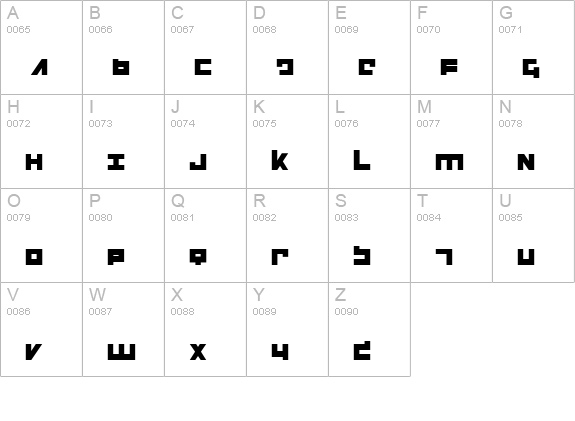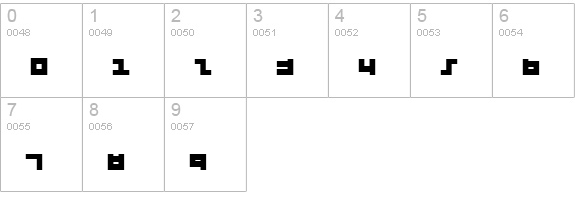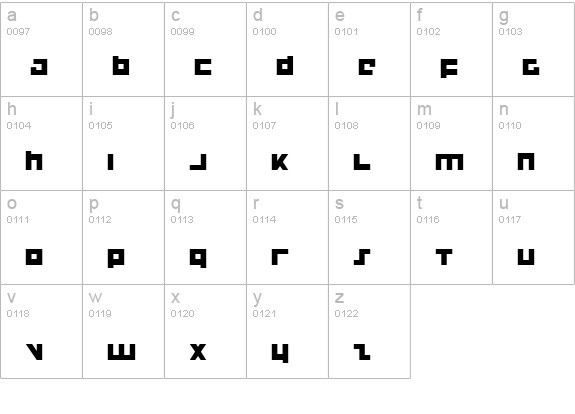
Flight Corps font is a bold and dynamic typeface designed to make a powerful statement. With its sleek and modern appearance, this font is perfect for projects that require a strong and impactful look. The sharp lines and geometric shapes of Flight Corps font exude a sense of speed and precision, making it an ideal choice for designs related to aviation, technology, and innovation. What makes Flight Corps font even more appealing is that it is available for free download at FontsMarket.com. This means that you can easily access this high-quality font without any cost, making it a valuable resource for designers and creatives looking to enhance their projects without breaking the bank. Whether you're working on a logo, poster, website, or any other design project, Flight Corps font is sure to elevate your work and leave a lasting impression on your audience.